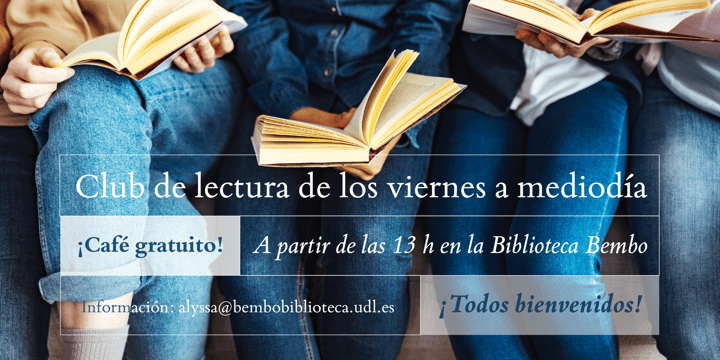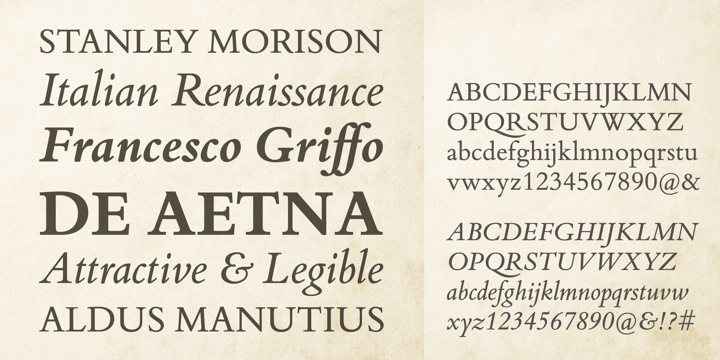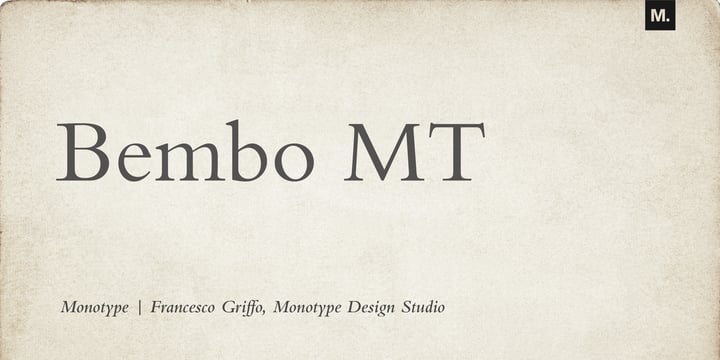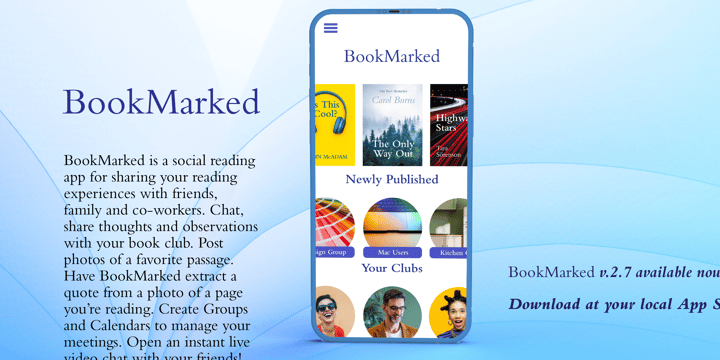
Francesco Griffo
Francesco Griffo (also Francesco da Bologna) – born 1450, died 1518 in Bologna, Italy – type founder, punch cutter, type designer. Trained as a punch cutter and type founder in Bologna.
1495: works with Aldus Manutius, for whom he cuts Greek alphabets and in 1501 an italic typeface for a Virgil edition. 1496: cuts the alphabet for Pietro Bembo’s "De Aetna", . 1502: parts company with Aldus Manutius. 1503: cuts an italic typeface for the printer Gershom Soncino in Fano. 1516: opens his own printing workshop in Bologna. He cuts his third italic alphabet for his first publication.